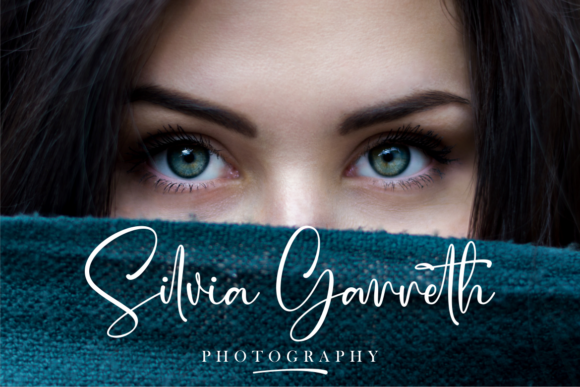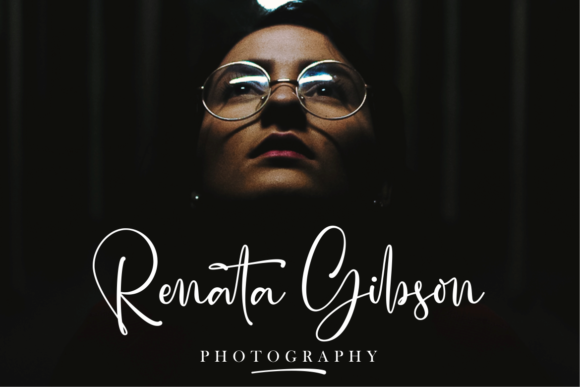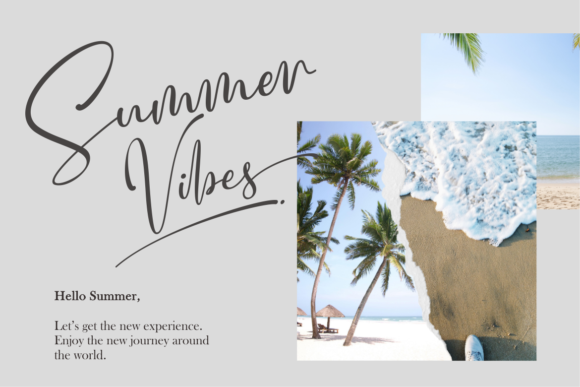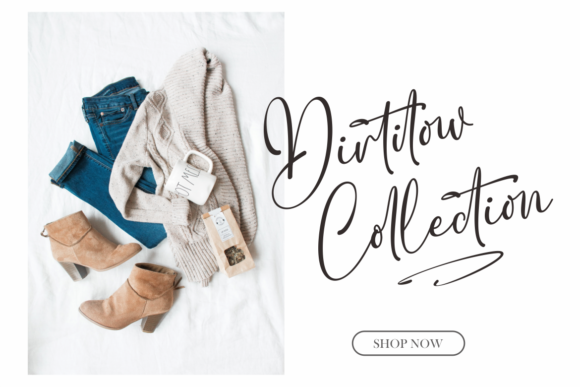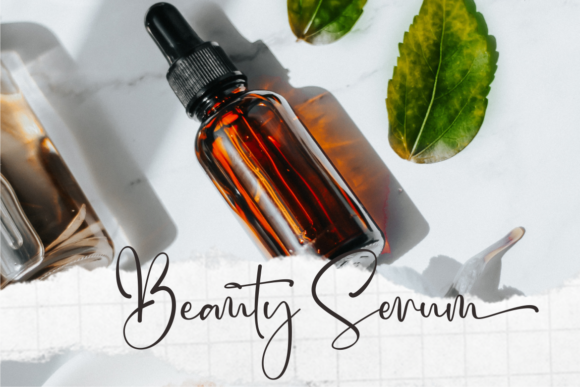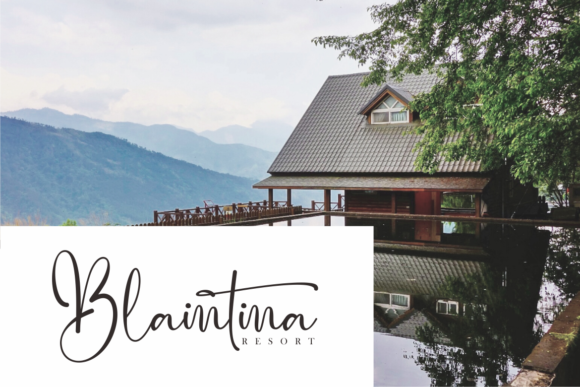
Introduction to Reghitta Font
Reghitta is a stylish and modern handwritten font, suitable for a wide spectrum of applications.
From greeting cards to headlines, this font will guarantee a romantic touch to each of your creations Reghitta is PUA encoded which means you can access all of the glyphs and swashes with ease.